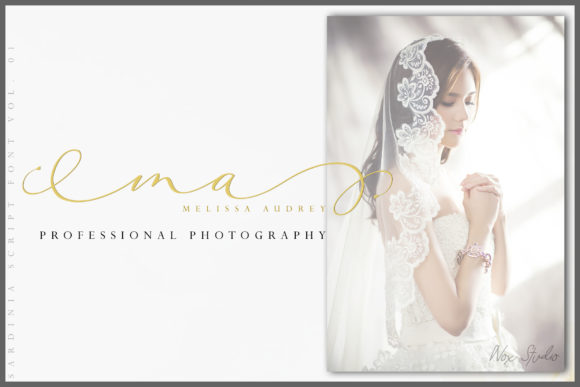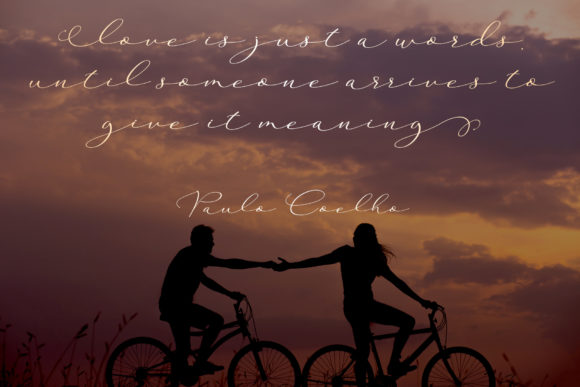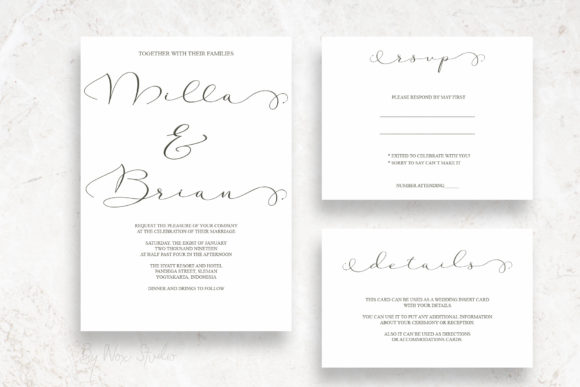
Introduction to Millia Font
As a designer, there’s nothing quite like the thrill of bringing a creative project to life. You’re brainstorming ideas, experimenting with different colors and textures, and finally, you stumble upon the perfect font to tie everything together. For many of us, this moment is pure magic. And that’s exactly what the Millia Font is all about – adding a touch of magic to your designs.
With its neatly crafted and highly detailed script, the Millia Font is a game-changer for any design project. Whether you’re working on a logo, a poster, or a brochure, this font is sure to elevate your creation to the next level. And the best part? It’s available for free download, making it an invaluable resource for designers of all levels.
As a valuable addition to your design library, the Millia Font offers a high-quality, transparent background that will blend seamlessly into your design. Its PUA encoding ensures that you can access all glyphs and swashes with ease, giving you complete creative control over your project. With the Millia Font, the possibilities are endless, and your designs are sure to shine.
Key Features of Millia Font
- High-quality design resource with a unique, creative style perfect for various projects
- Millia Font features a transparent background, making it ideal for use on custom backgrounds and creative compositions
- Comes in a single weight, ideal for those seeking a clean and modern aesthetic for their design projects
- Perfect for designers, artists, and creatives working on high-end projects, including branding, packaging, and editorial design
- Millia Font is a valuable addition to any design resource library, offering a unique and versatile font for various creative projects
Honest Review: Millia Font
I recently had the chance to work with the Millia Font, and I must say it’s been a game-changer for my creative projects. The font is a high-quality design resource that offers a unique and elegant touch to any design.
- ✨ The font’s transparent background allows for seamless integration into any design, giving it a professional look and feel.
- ✨ The font is highly customizable, making it perfect for designers who want to add a personal touch to their creative projects.
- ⚠️ The font may not be suitable for large-scale printing due to its delicate design.
- ⚠️ Some users may find the font’s unique style challenging to read, especially in smaller font sizes.
Overall, I’m thoroughly impressed with the Millia Font. Its high-quality design and versatility make it an excellent addition to any design resource library. If you’re looking for a unique and elegant font to enhance your creative projects, I highly recommend giving the Millia Font a try.
In PowerPoint or Word, select the text tool and browse for the Millia Font in the font library. Choose your desired font style and adjust the text settings as needed. The Millia Font’s high quality and versatility make it perfect for presentations and documents.
Tips for Getting the Most Out of Millia Font
To get the most out of the Millia Font, experiment with different font styles and sizes to achieve the desired effect. You can also use the font in combination with other design elements to create a unique and eye-catching design.
The Millia Font is perfect for a variety of creative projects, including branding, marketing materials, and web design. Its high quality and elegant design make it ideal for designs that require a professional and sophisticated look.